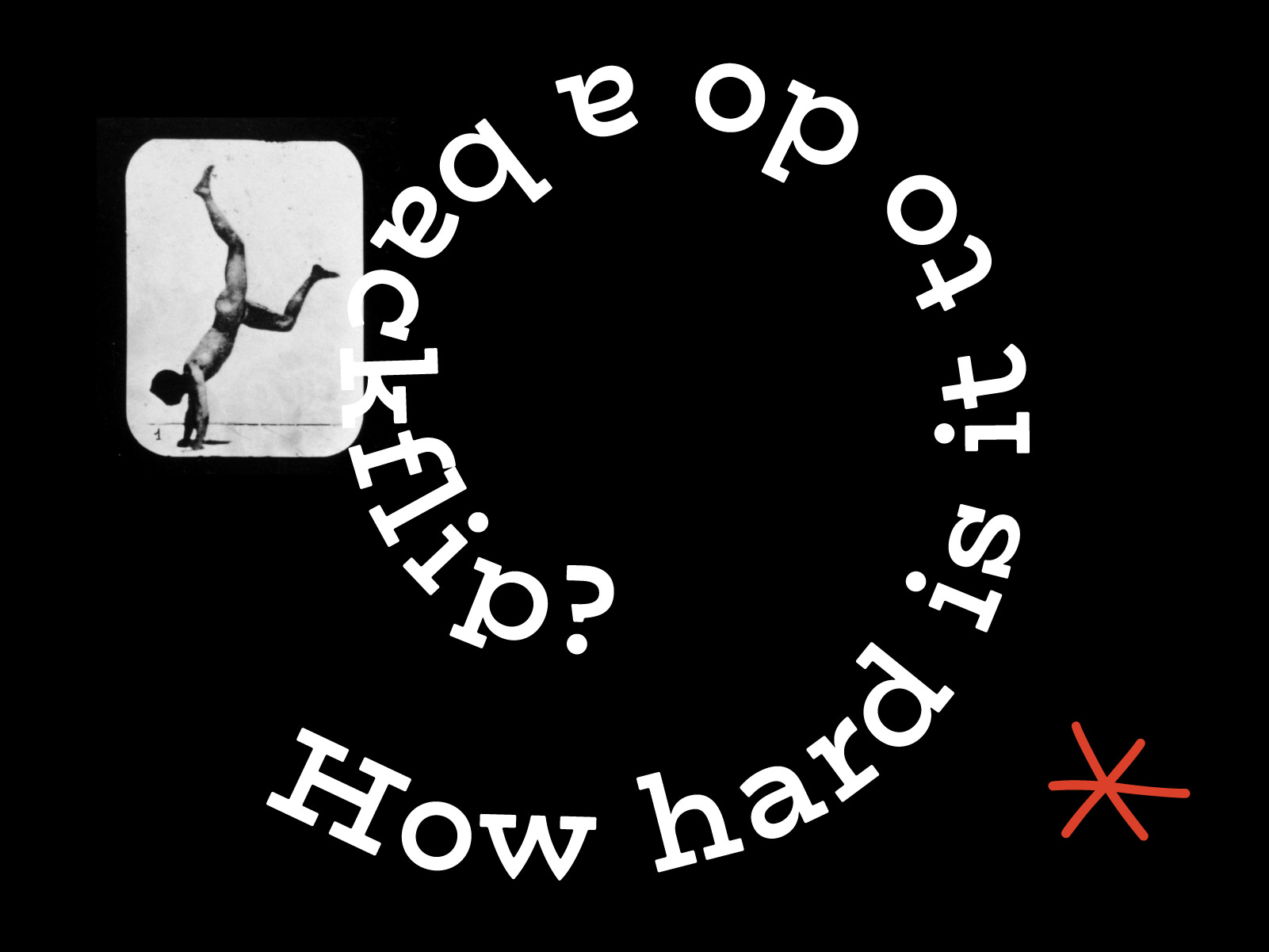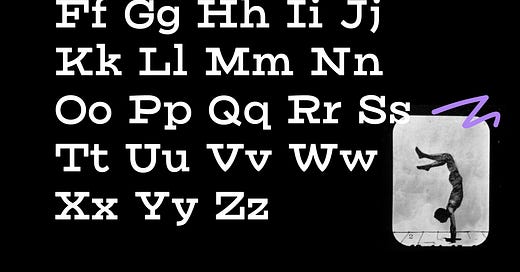
Week 19: Backflip 2
I flippin' love ya
This week I revisited Backflip! It’s my most-downloaded font from this project so far and I love that y’all are so into it! I’m never 100% sure what’s going to land so it’s fun to bring back the faves for a second round of TLC.
When I designed Backflip, I knew that I would want to add a lowercase to it at some point. And because I haven’t made a lowercase set in a while, there was no time like the present! However, adding lowercase to an existing caps set can be tricky. My advice is to start with a few lowercase letters and solidify the weight, width, and x-height next to the caps before moving on to other letters! I usually start with n, o, and h. It can get messy quickly if you add a bunch before everything gets nailed down.
Backflip is a mostly normal slab but with some swooshy curves added in (like in N, V, and Z). The swooshy bits are a little more difficult to add to the lowercase so I leaned into the cute factor and added some playfulness where I could. I love short little descenders and big, open bowls. I also made the CrAzY decision to have a single story g with a double story a. That’s not how it’s typically done but I couldn’t get a double story g to work for the life of me this week!